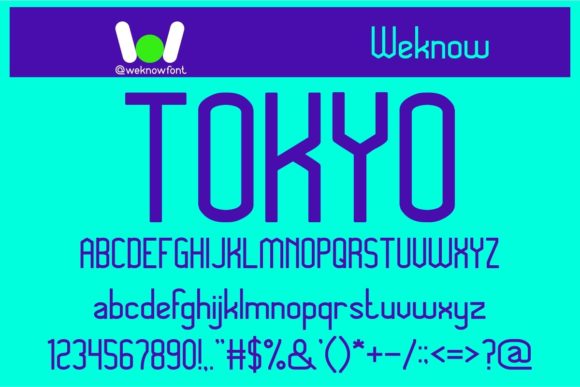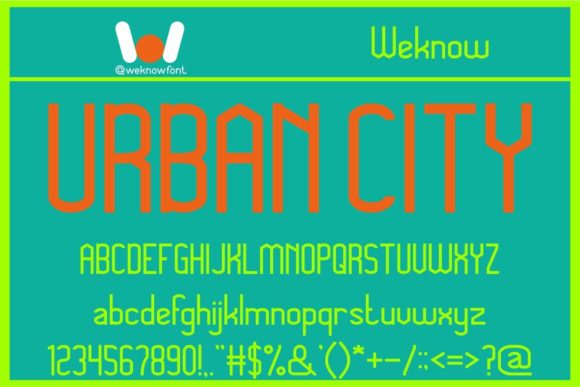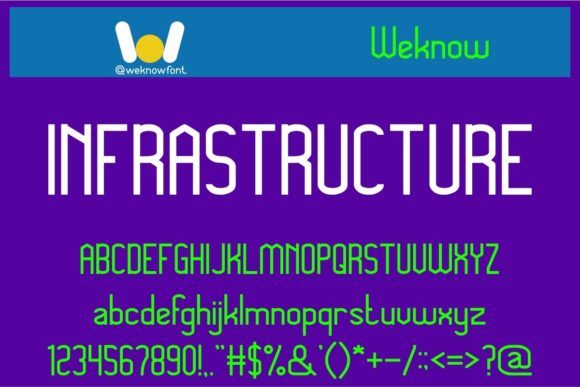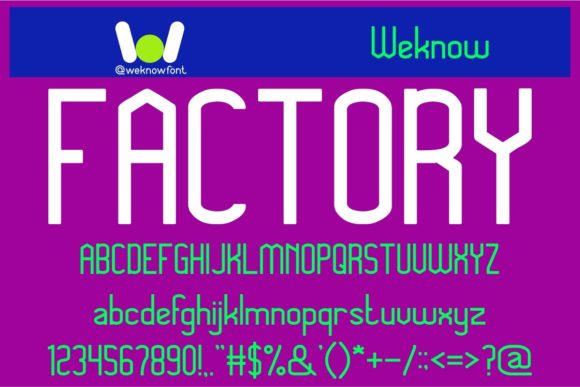
Introduction to Megapolitan Jakarta Font
Megapolitan Jakarta is an elegant and modern sans serif font.
This minimalist and clean vibe can easily apply to your favorite designs such as book covers, magazines, social media posts, invitations, and so much more This font is PUA encoded which means you can access all of the amazing glyphs and ligatures with ease.